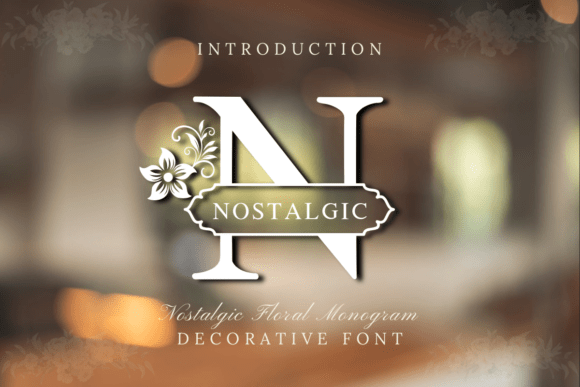
Timeless Elegance with Nostalgic Floral Monogram
Recently, I found myself in the middle of a redesign for a lifestyle blog that had grown stale over the years. The original design was functional but lacked personality. As I scrolled through my font library, I came across Nostalgic Floral Monogram, and something about its grand, classical serifs immediately caught my eye. It felt like a whisper from the past, inviting me to bring back a sense of elegance and warmth to the project.
A Font That Speaks to the Soul
Nostalgic Floral Monogram is more than just a decorative typeface—it's a visual narrative. Its intricate floral accents and refined serifs evoke a sense of vintage charm, making it ideal for editorial design that values both aesthetics and readability. The font carries a quiet confidence, as if each letter has been handcrafted with care and intention. This personality makes it particularly well-suited for projects that aim to blend sophistication with approachability.
Where to Use Nostalgic Floral Monogram
When considering where to apply this font, I thought of several real-world scenarios. For instance, using Nostalgic Floral Monogram as a headline in a recipe ebook can instantly elevate the tone, transforming a simple list of ingredients into an inviting culinary experience. Similarly, it works beautifully as a cover font for a wedding guide, where the delicate floral elements mirror the romantic essence of the theme.
I also considered how this font could enhance a digital magazine layout. When paired with a clean sans serif body text, it creates a striking contrast that guides the reader’s eye while maintaining a cohesive visual language. Whether it's a blog header, a newsletter graphic, or a chapter opener, Nostalgic Floral Monogram adds a layer of character without overwhelming the content.
Balancing Readability and Style
One of the key challenges in typography is finding the right balance between style and legibility. While Nostalgic Floral Monogram is undeniably beautiful, I made sure to test it across various formats—screen reading, mobile layouts, PDF exports, and print materials. In most cases, the font performed admirably, especially when used in titles and subheadings rather than long-form body text.
For longer reading sections, I opted to pair it with a readable serif font, ensuring that the overall design remained accessible. This approach not only enhanced the visual hierarchy but also supported the reader’s journey through the content. By using Nostalgic Floral Monogram strategically, I could maintain its aesthetic appeal while preserving clarity and engagement.
Font Pairing for Editorial Design
When designing for editorial purposes, font pairing becomes essential. I found that Nostalgic Floral Monogram pairs well with modern sans serif fonts for captions and navigation, creating a dynamic interplay between tradition and innovation. This combination allows for a versatile design that can adapt to different platforms and audiences.
For example, in a coaching workbook, I used Nostalgic Floral Monogram for section headings and pull quotes, while keeping the body text in a clean, easy-to-read sans serif. This not only highlighted the key messages but also ensured that the content remained engaging and digestible.
Design Considerations and Practical Tips
It’s also worth noting that while Nostalgic Floral Monogram is primarily a display font, it can be used effectively in smaller doses throughout a design. Whether it's for decorative accents, logos, or brand identity elements, its elegance can add a touch of refinement to any project.
Real-World Applications
To give you a better idea of how Nostalgic Floral Monogram can be applied, let’s consider a few realistic examples. For a printable planner, the font can be used on the cover and section headers, offering a classic yet fresh look. In a course PDF, it can serve as the title font, drawing attention to the main subject while maintaining a professional tone.
Another application I explored was using it in a digital magazine layout. By incorporating the font into headlines and pull quotes, I was able to create a visually rich experience that encouraged readers to engage with the content more deeply. The result was a design that felt both intentional and inviting.
Ultimately, Nostalgic Floral Monogram is a font that speaks to the heart of editorial design. It brings a sense of nostalgia and elegance to every project it touches, whether it’s a lifestyle blog, a recipe ebook, or a wedding guide. With its timeless appeal and thoughtful structure, it’s a valuable addition to any designer’s toolkit.